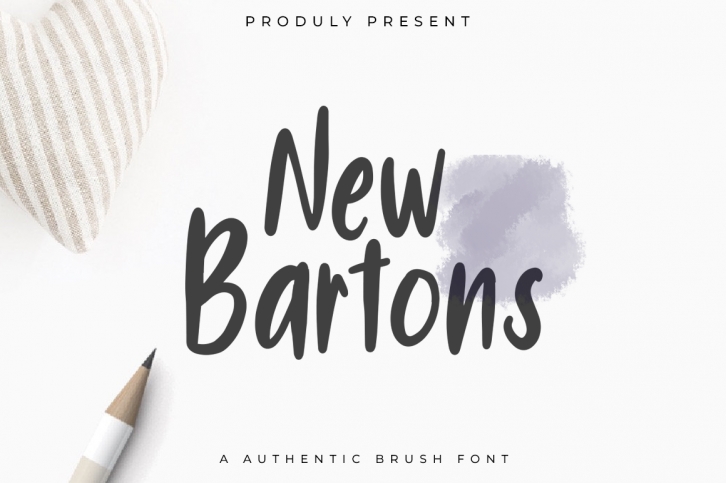
New Bartons FONT Download
New Bartons is a gorgeous font that was realeased on February 26, 2019. The font can be used in many style contexts and design environments. Perfect for invitations, magazines, websites, logos, and more! It was designed by Indotitas and the file size is 18.51 MB. Thanks for checking out this font!